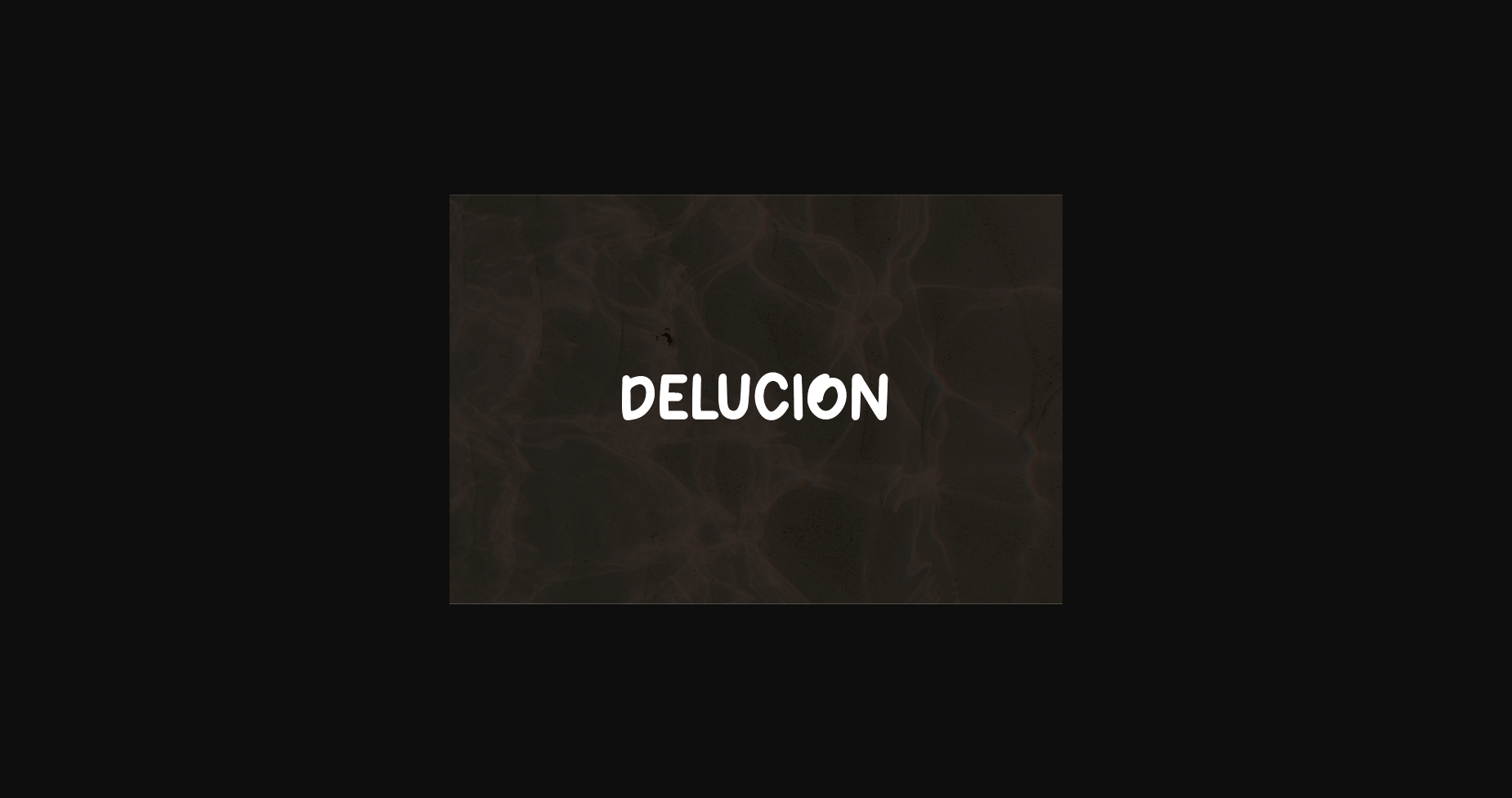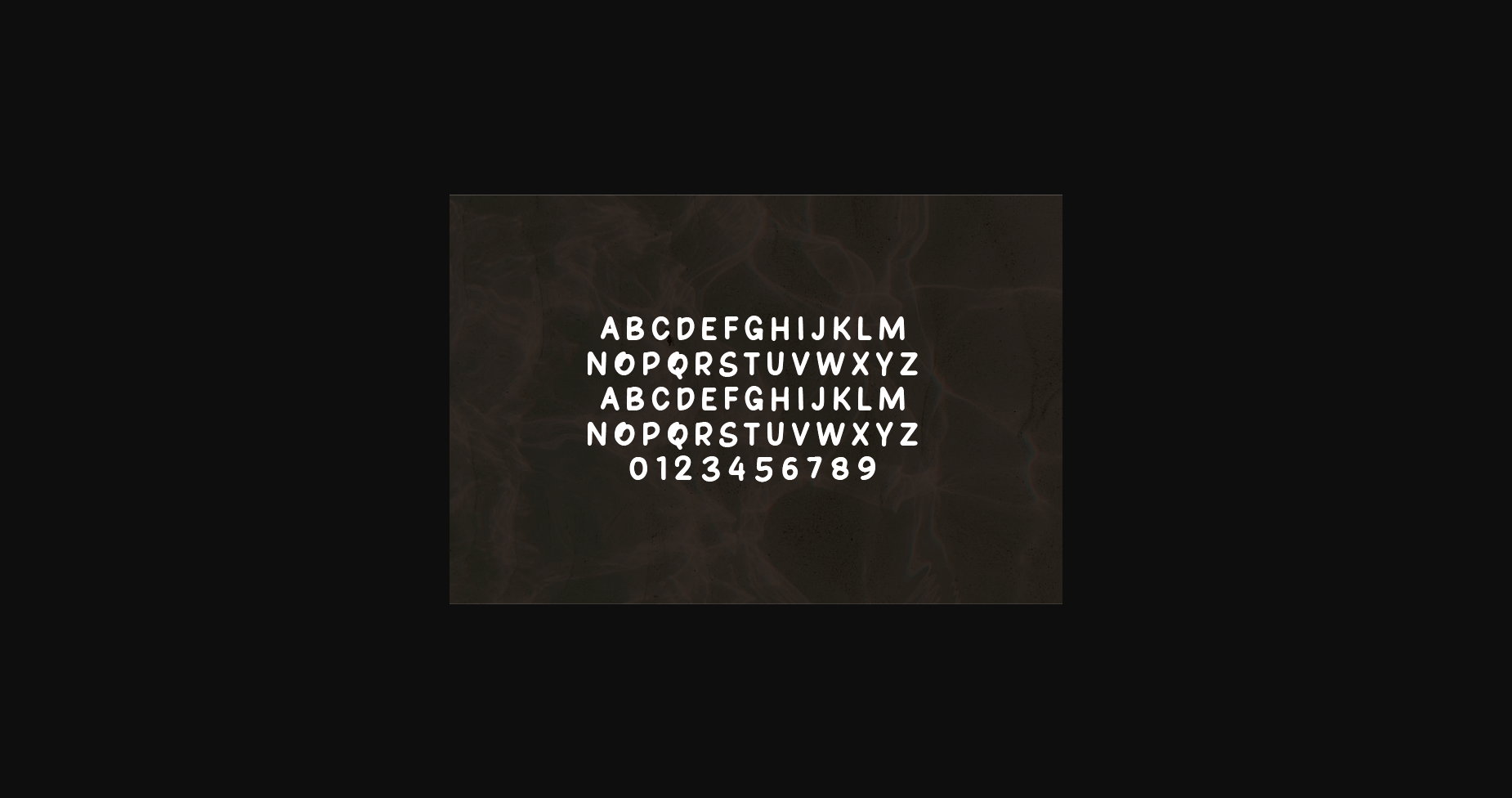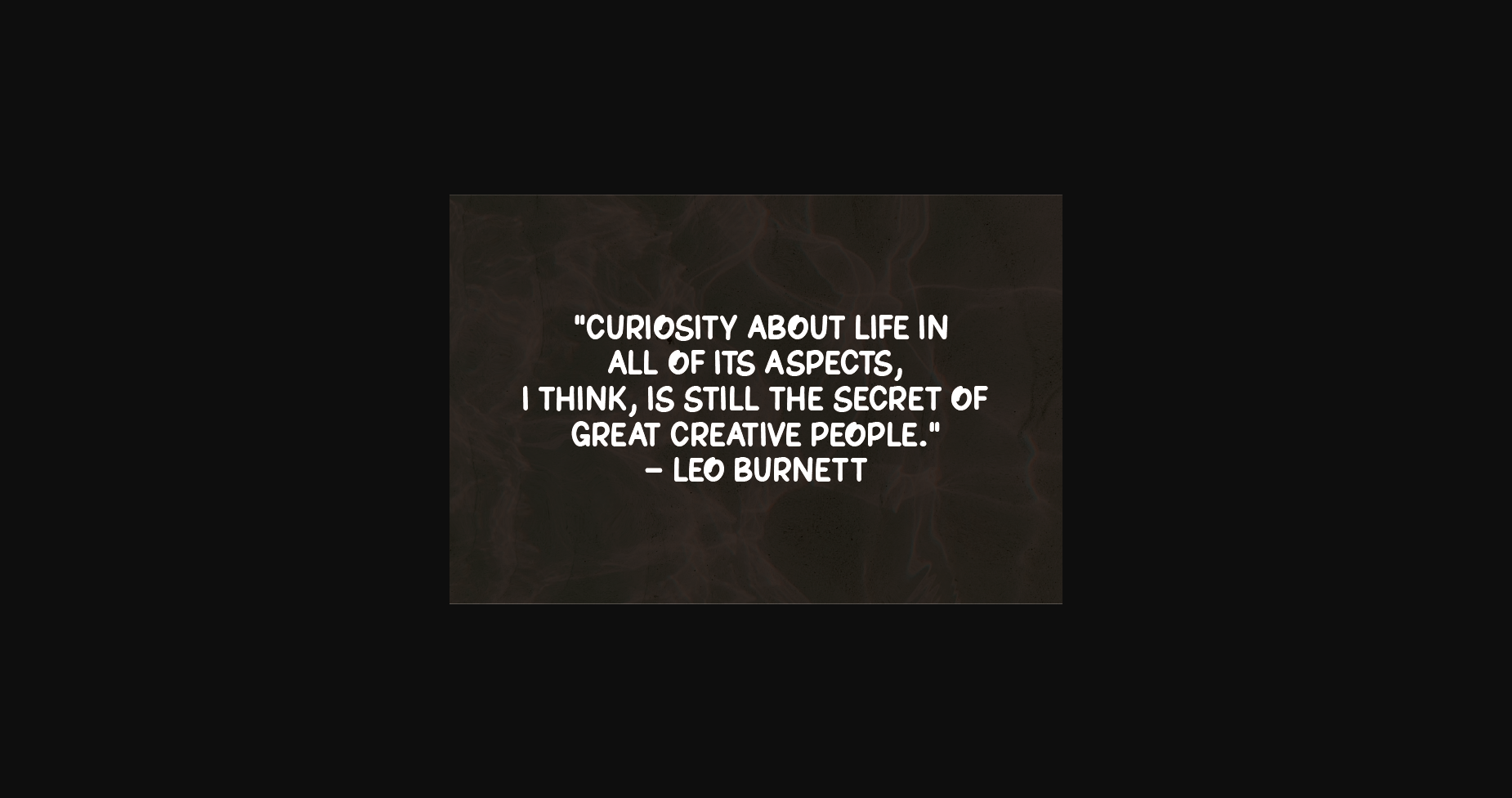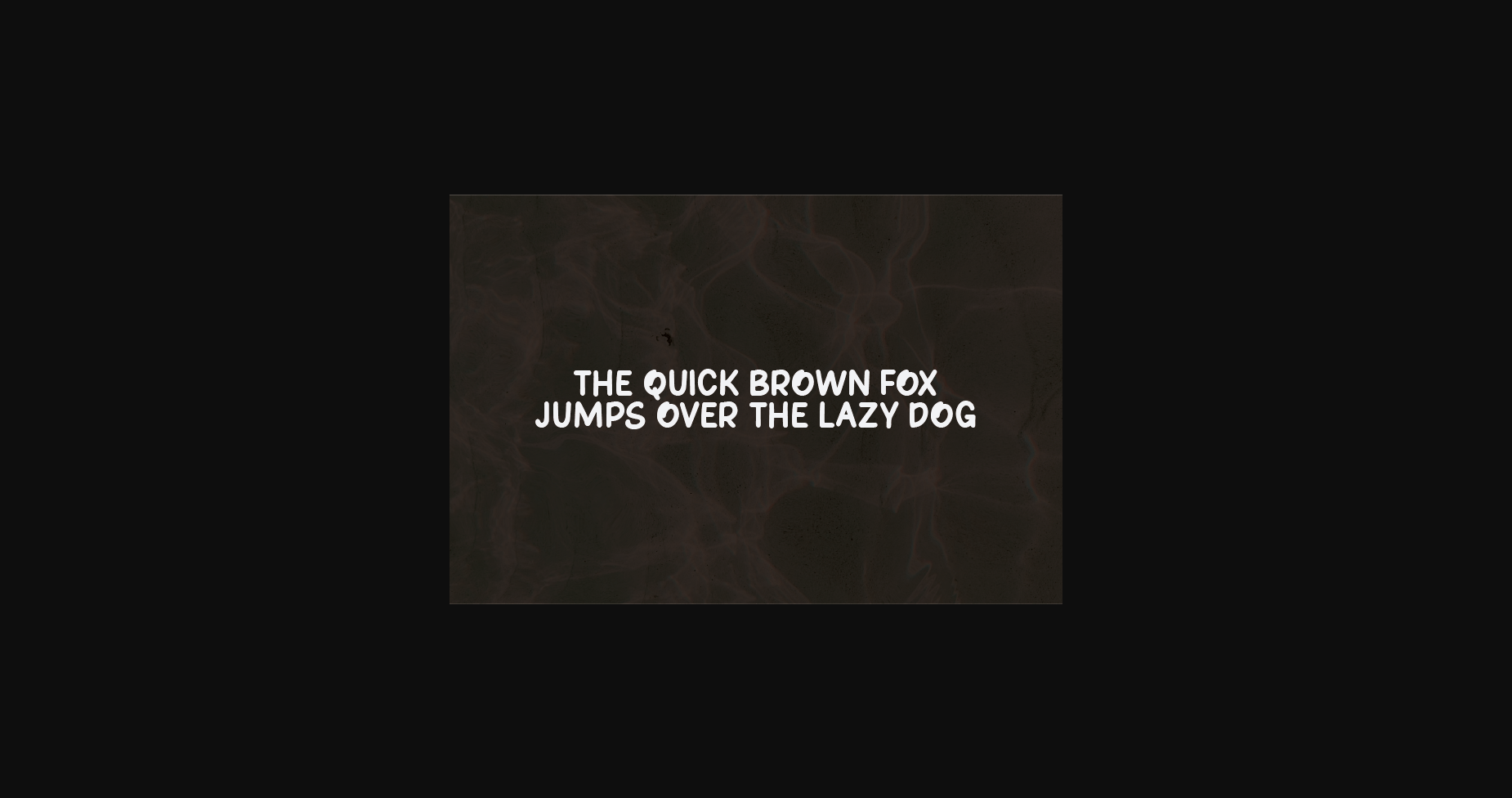
About Delucion Font
Delucion is a natural sans serif font made without changing a single node in each character’s indentation- this makes this font very interesting and unique. Perfect for quotes, notes, tees, and any product design.